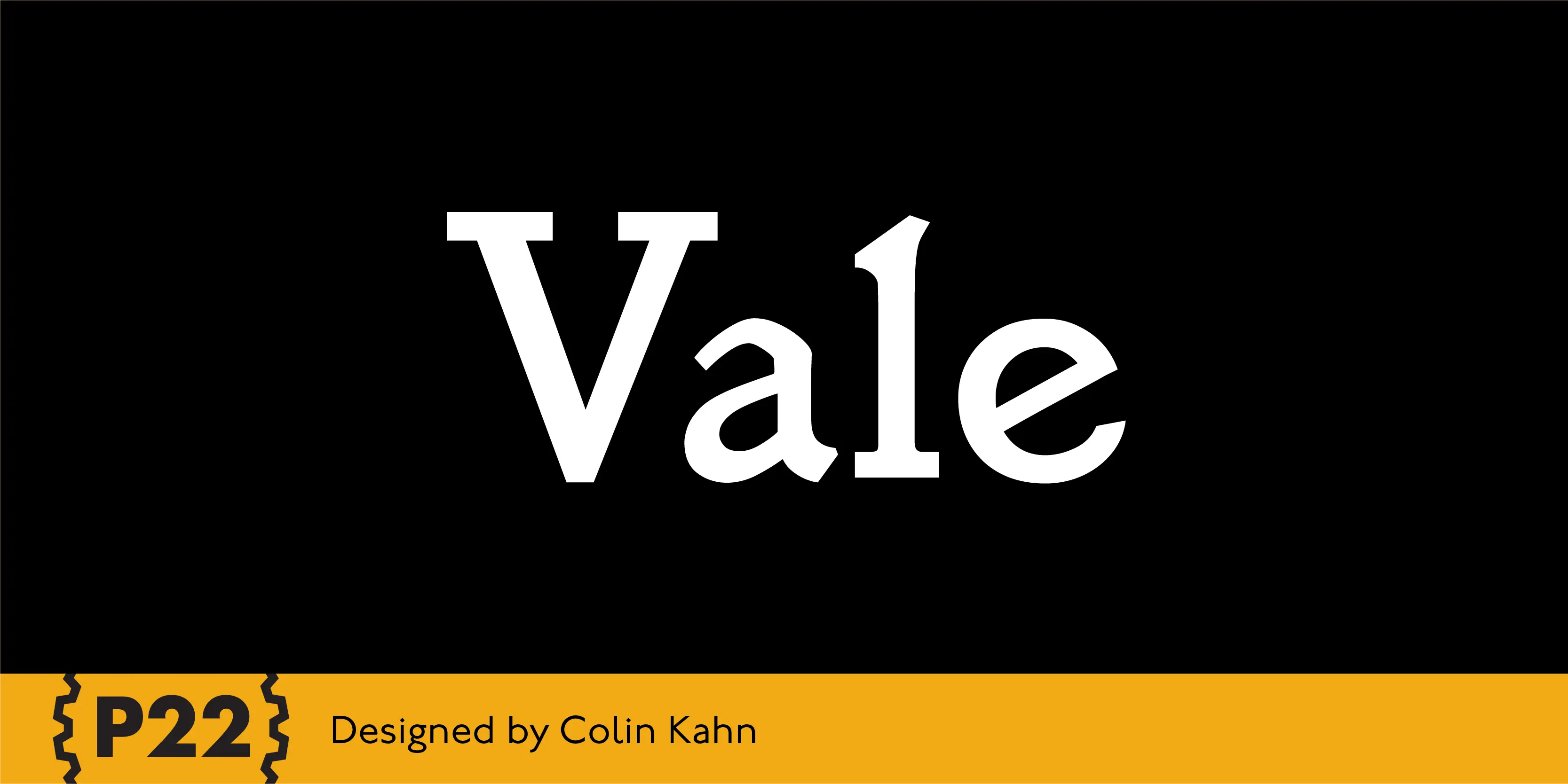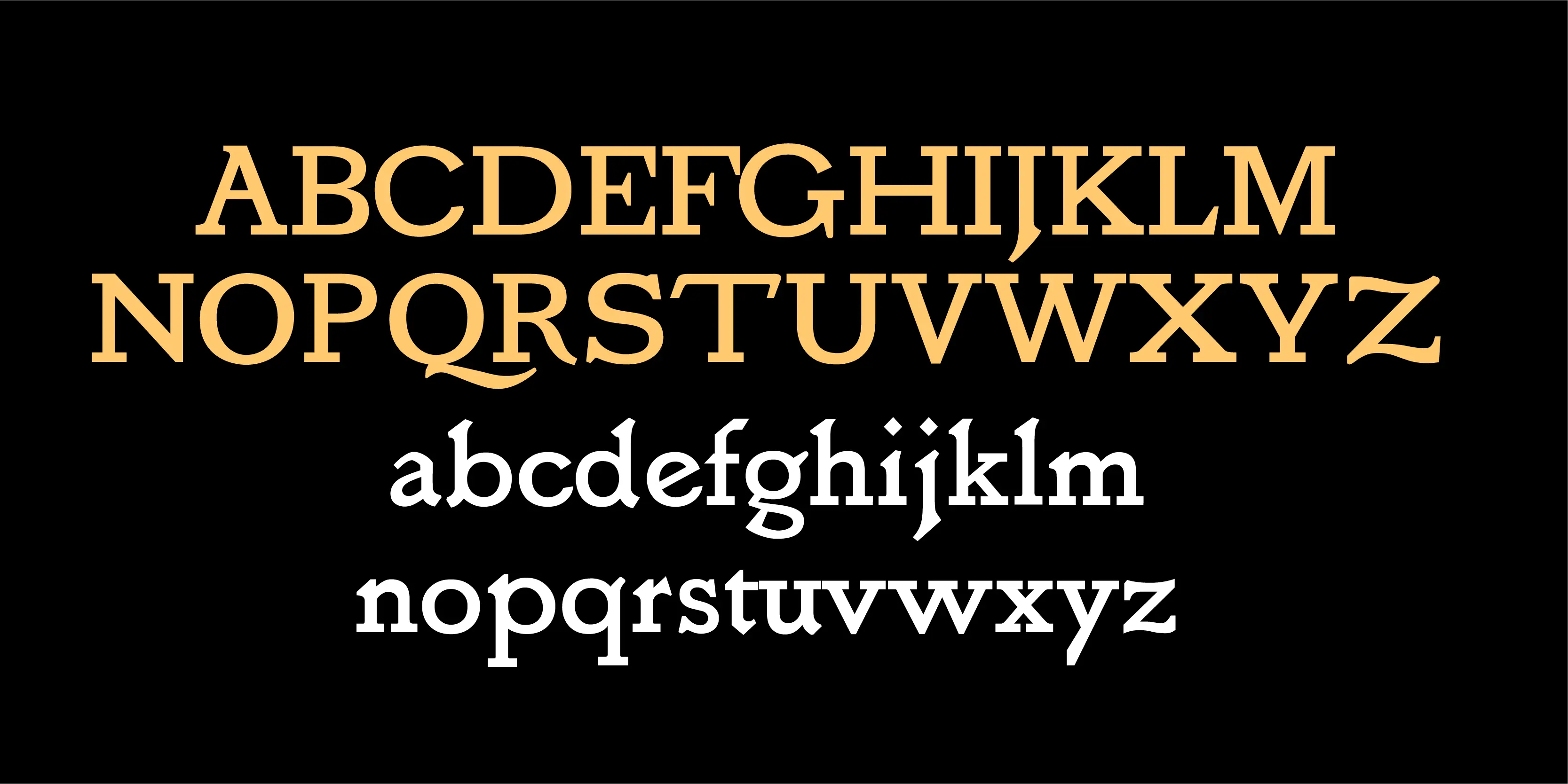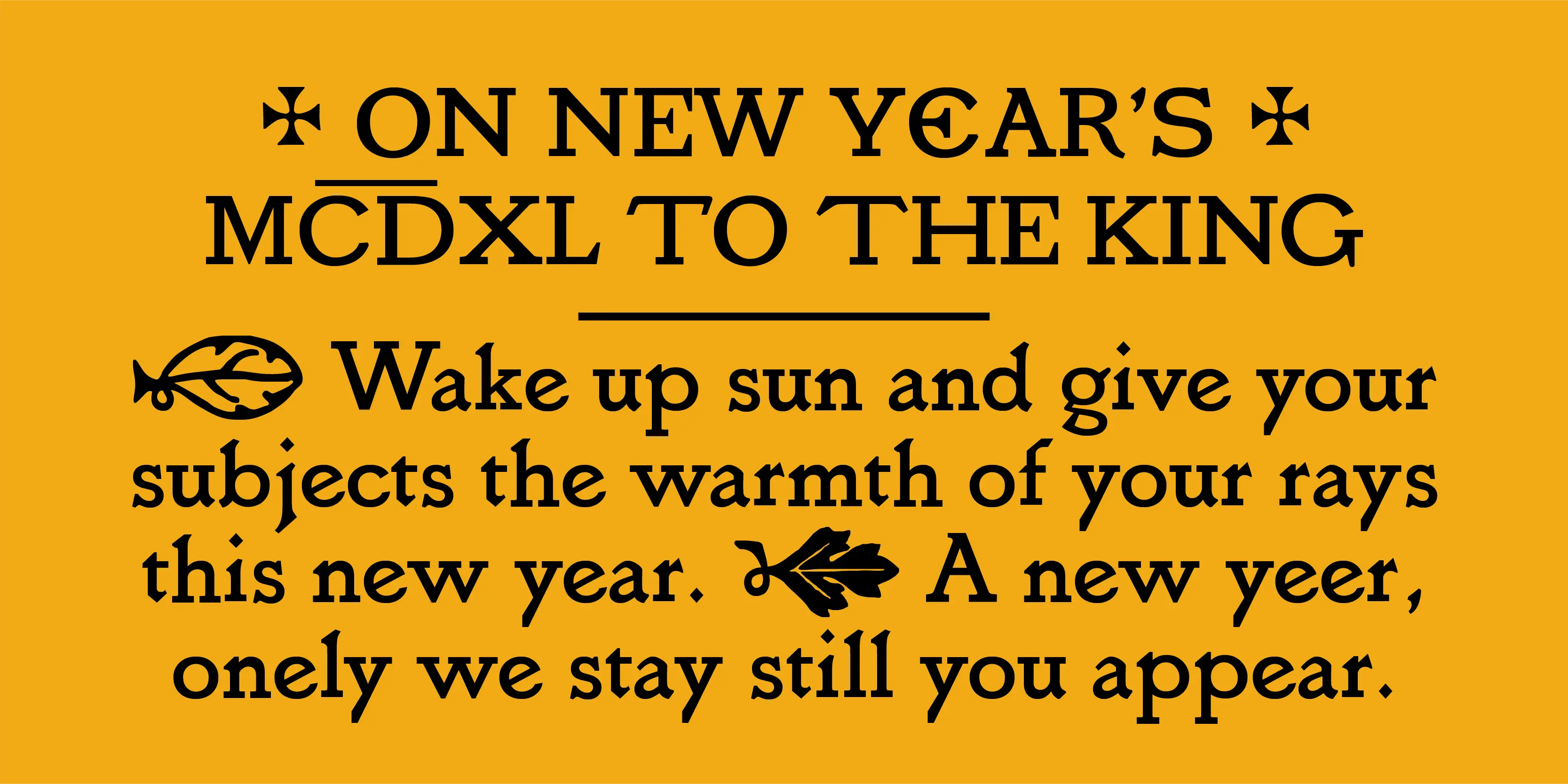
Vale Font
Vale
Vale Pro combines two fonts: P22 Vale Roman and P22 Vale King’s Fount. Both faces share many characters designed by Vale Press owner, Charles Ricketts. The Pro OpenType font also includes Central European character sets, old style figures, fractions and a special “Middle English” feature to make any text “Olde.” For those without OpenType savvy applications, the single King’s and Roman fonts are included individually.
• Fractions
• Old Style Numerals
• Ornaments
• Proportional Numerals
• Slashed Zero
• Subscript
• Superscript
• Swashes
• Tabular Numerals
• Titling Capitals